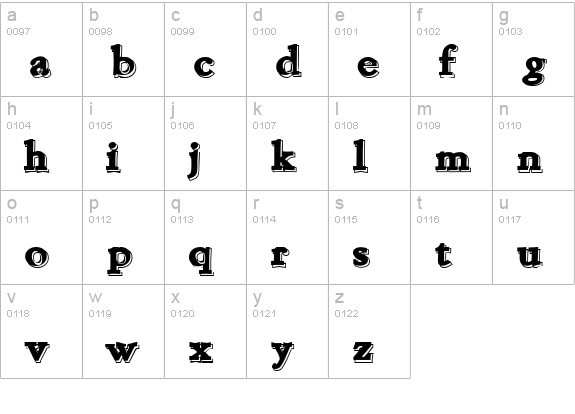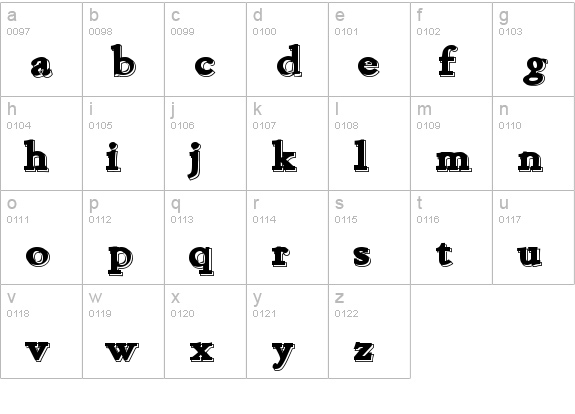
Chapou Relief Tryout Font Details
Chapou Relief Tryout font is a stunning display typeface that exudes elegance and sophistication. With its intricate details and unique design, this font is sure to make a statement in any creative project. The relief effect adds depth and dimension, creating a visually captivating look that will draw attention to your text. What makes Chapou Relief Tryout font even more appealing is that it is available for free download at FontsMarket.com. This means you can easily incorporate this beautiful font into your designs without any cost, making it a valuable addition to your font collection. Whether you're working on a branding project, poster design, or any other creative endeavor, Chapou Relief Tryout font is a versatile choice that will elevate your work to the next level. Download it today and unlock the endless possibilities this font has to offer.